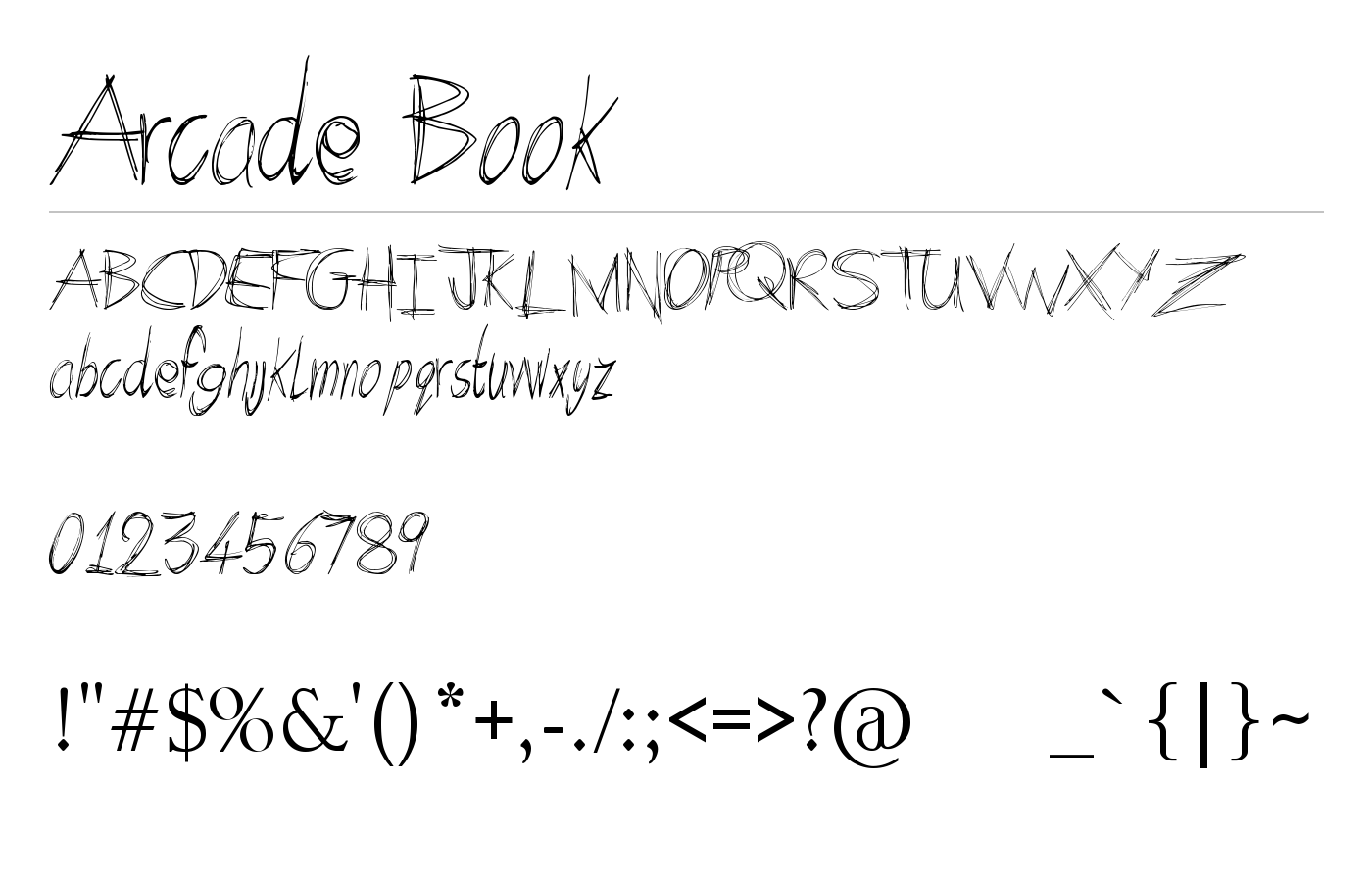
Arcade Book is a quirky, hand-drawn sans serif font with a loose, sketchy style that gives it a playful and artistic personality. Its irregular strokes and tall, narrow forms make it ideal for creative projects needing a casual, handmade feel, such as posters, logos, or youth-oriented branding. This font works best in display settings where its unique, energetic character can stand out and add a touch of spontaneity.
Arcade Book Font